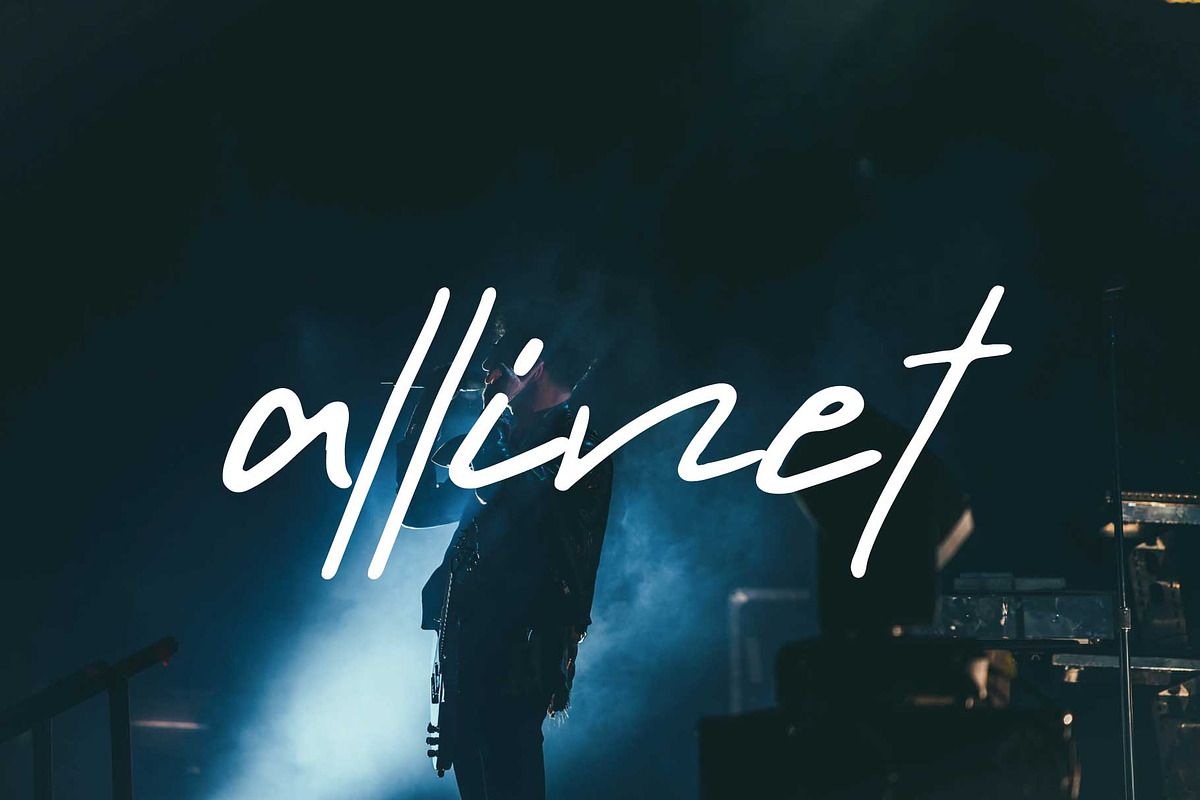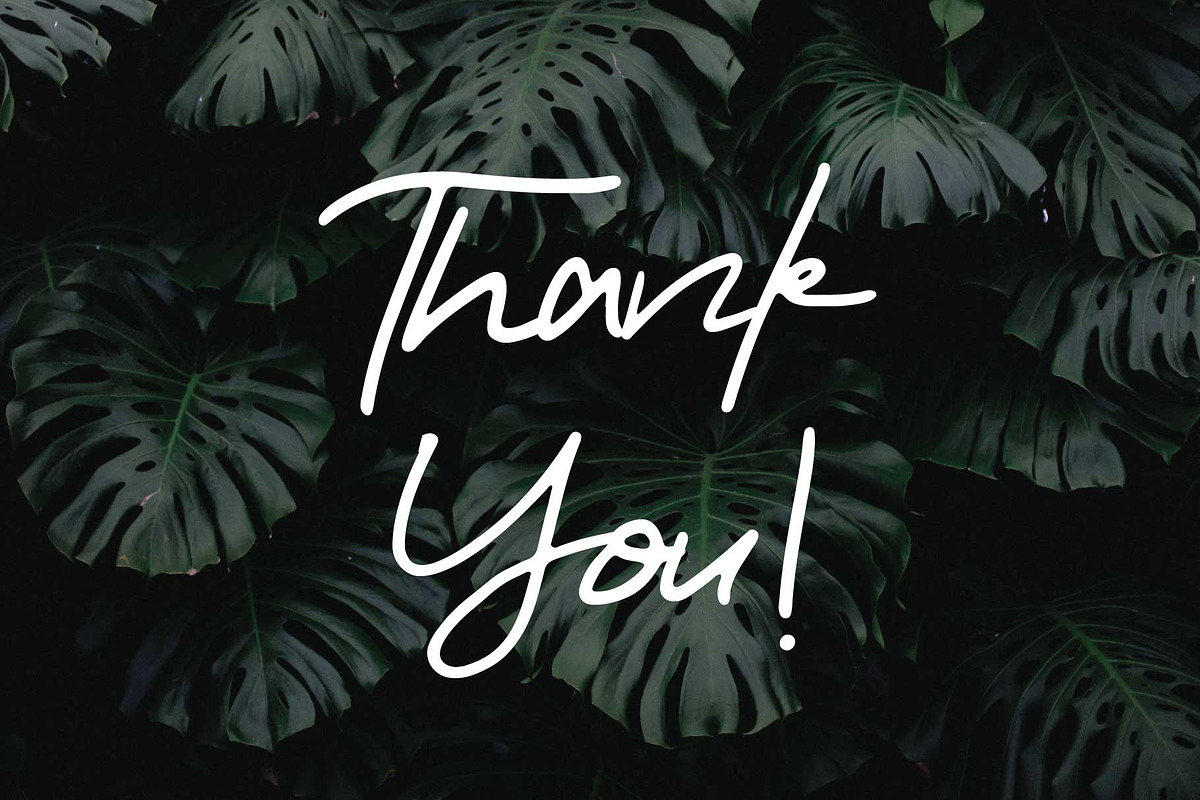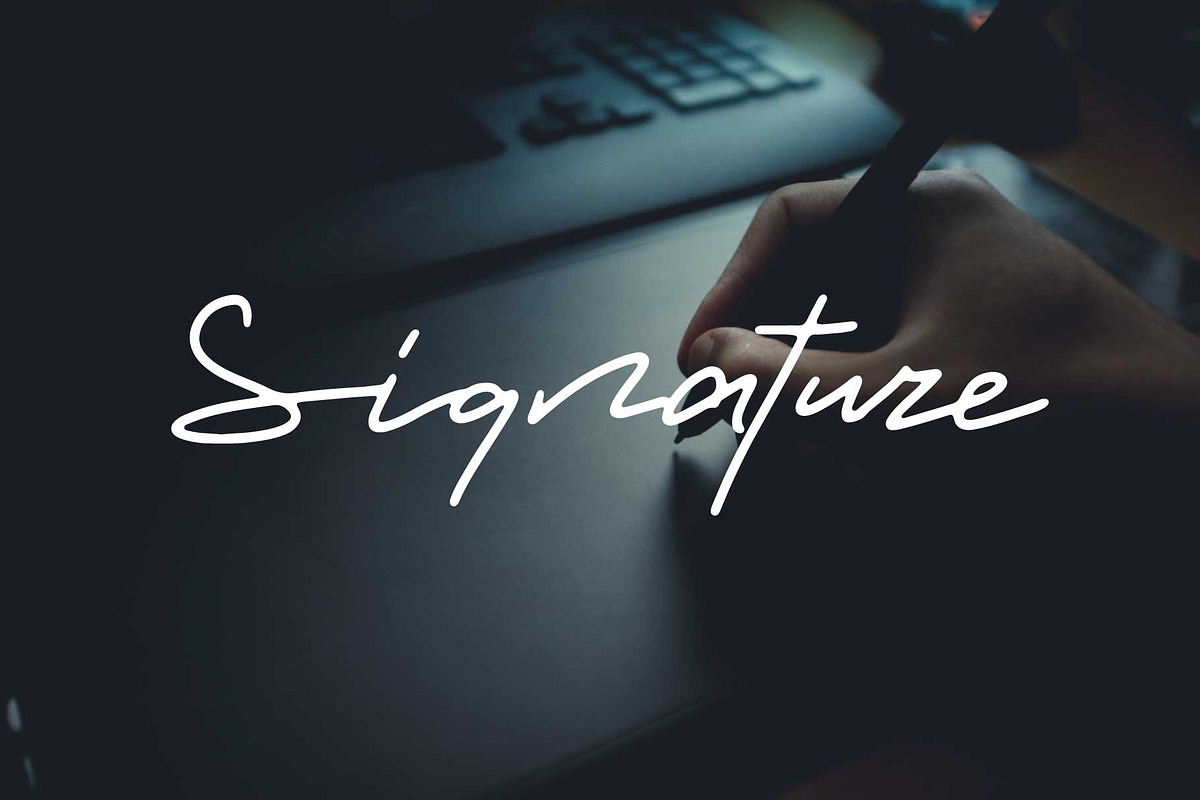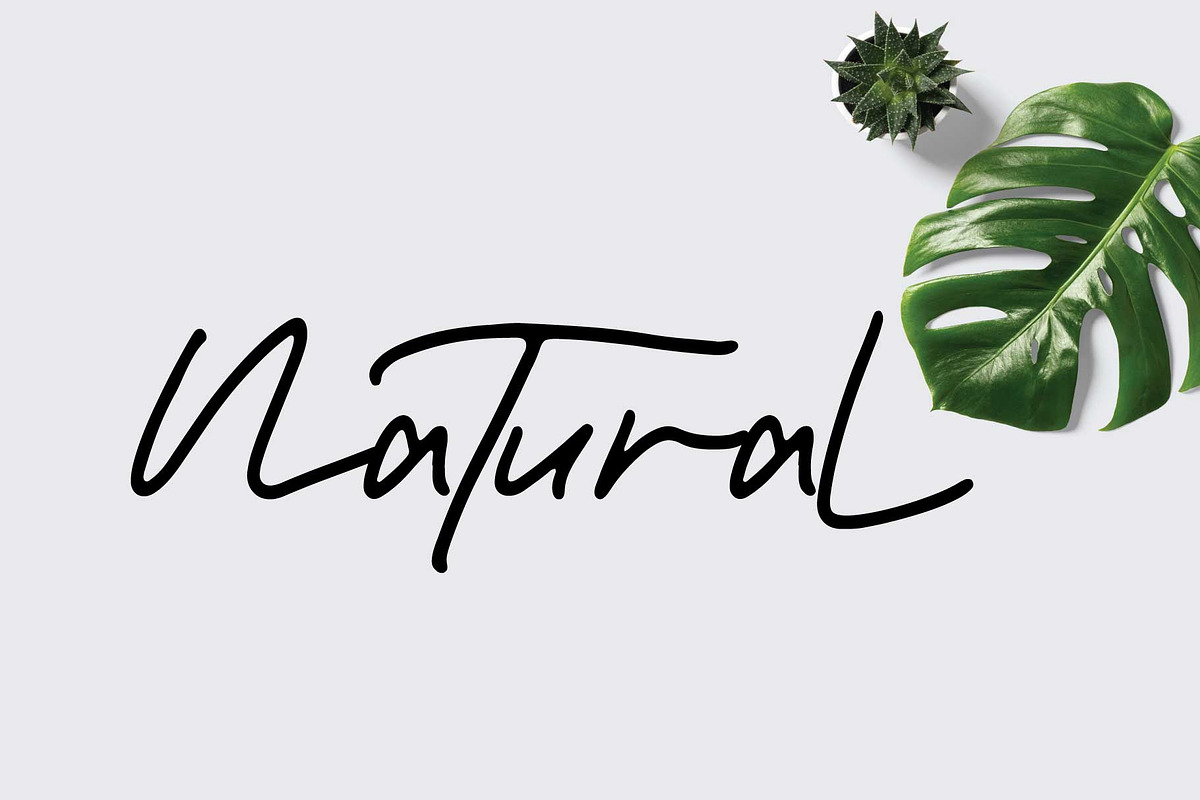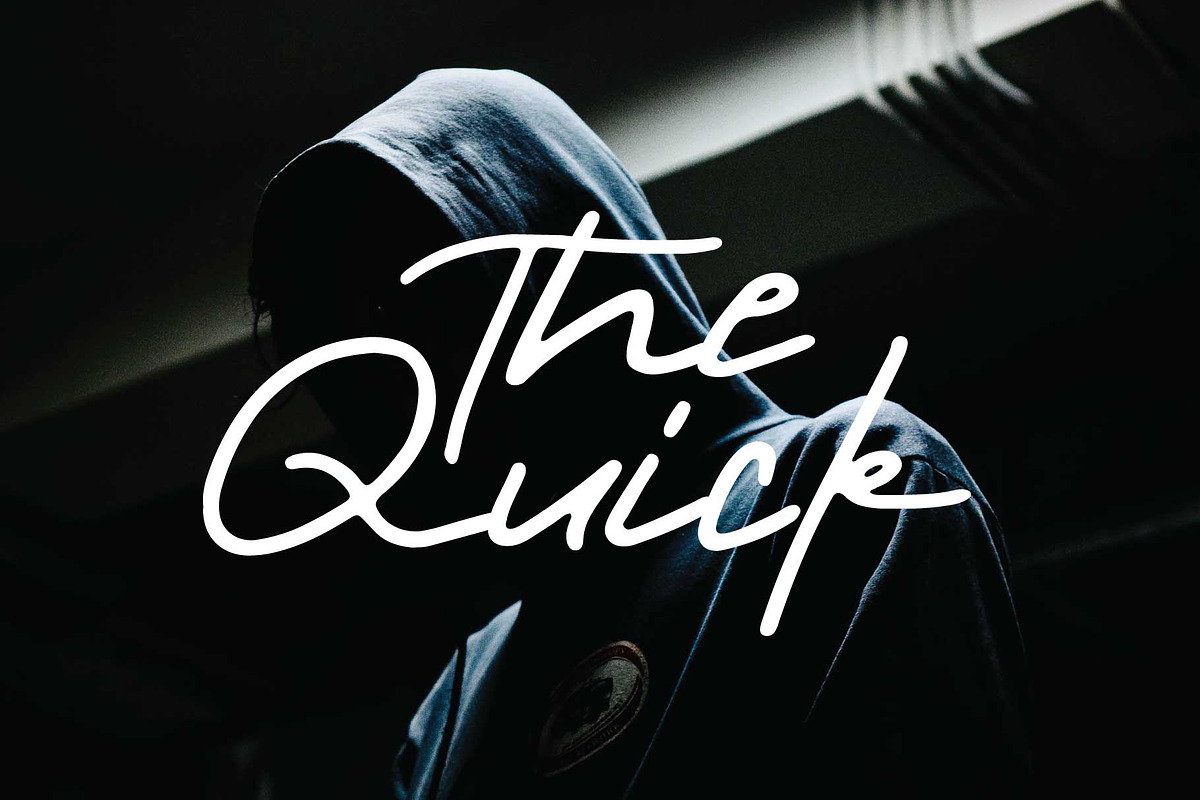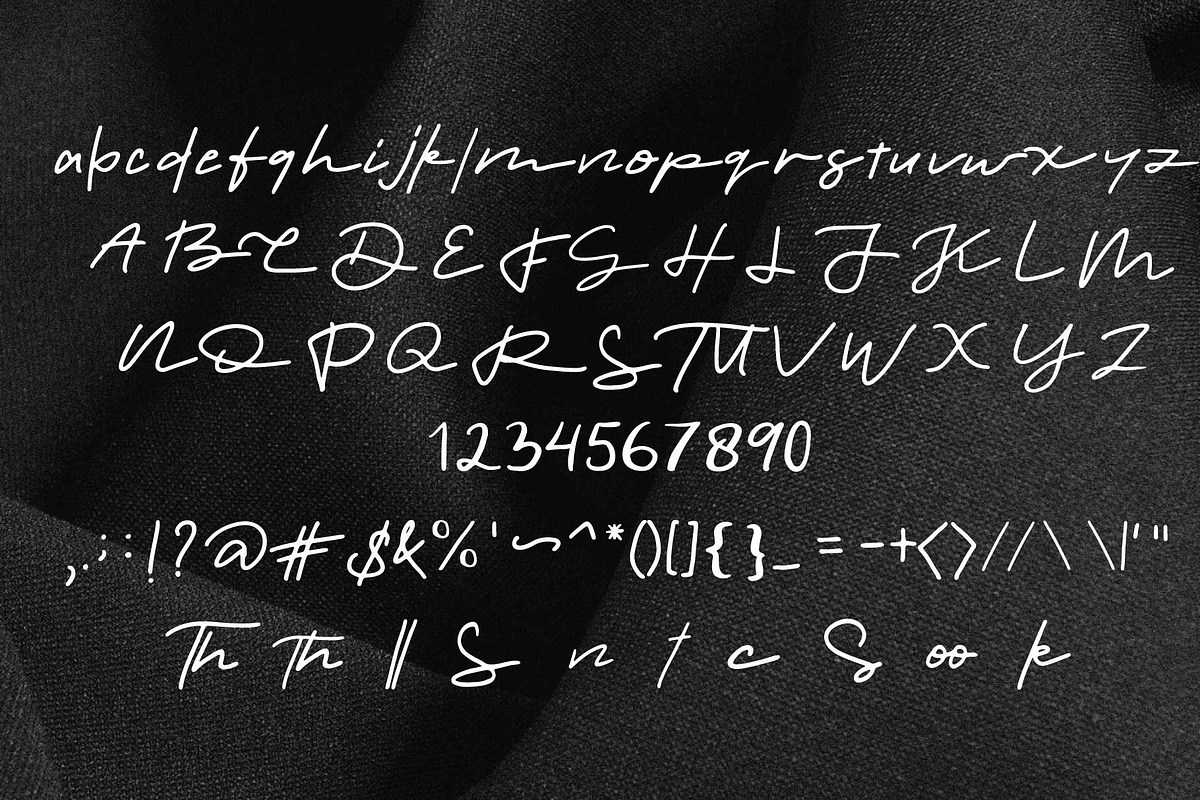
allinet font
Allinet Font by Goodigital13 is a font selected for branding, posters, packaging, typography.
Why allinet font is worth a look
allinet font by Mariyana fits naturally into Branding, posters, packaging, typography.